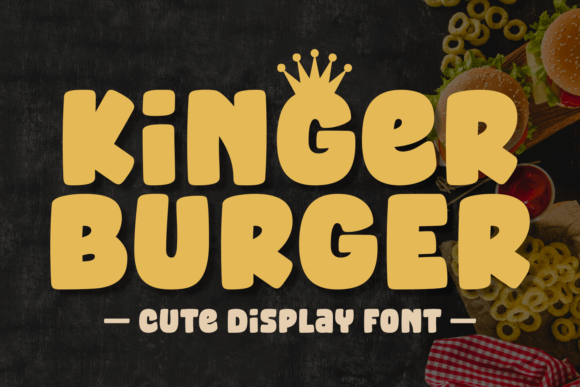
Embrace the bold and playful KINGER BURGER font, a display typeface crafted to make your messages pop with undeniable charm. Its chunky letterforms and all-caps design command attention, adding a touch of whimsy to your creative endeavors. Unleash the power of KINGER BURGER to elevate your posters, headlines, and social media graphics, ensuring your text sizzles with personality and leaves a lasting impression.
Picture the captivating allure of KINGER BURGER gracing your memorial card designs, transforming them into heartfelt tributes that honor the cherished memories of loved ones. Its bold strokes and playful spirit lend a unique charm, creating a lasting visual impact that reflects the essence of those you hold dear.
KINGER BURGER is not just a font; it's an expression of your creativity, a bold statement that reflects your unique style. Its versatility shines through whether you're crafting eye-catching posters, commanding headlines, or creating engaging social media graphics. KINGER BURGER ensures your message cuts through the noise, leaving an indelible mark on your audience.
Indulge in the delectable boldness of KINGER BURGER and let its playful energy ignite your imagination. This font is more than just a design choice; it's a culinary delight, a feast for the eyes that will tantalize your senses and leave you craving more.